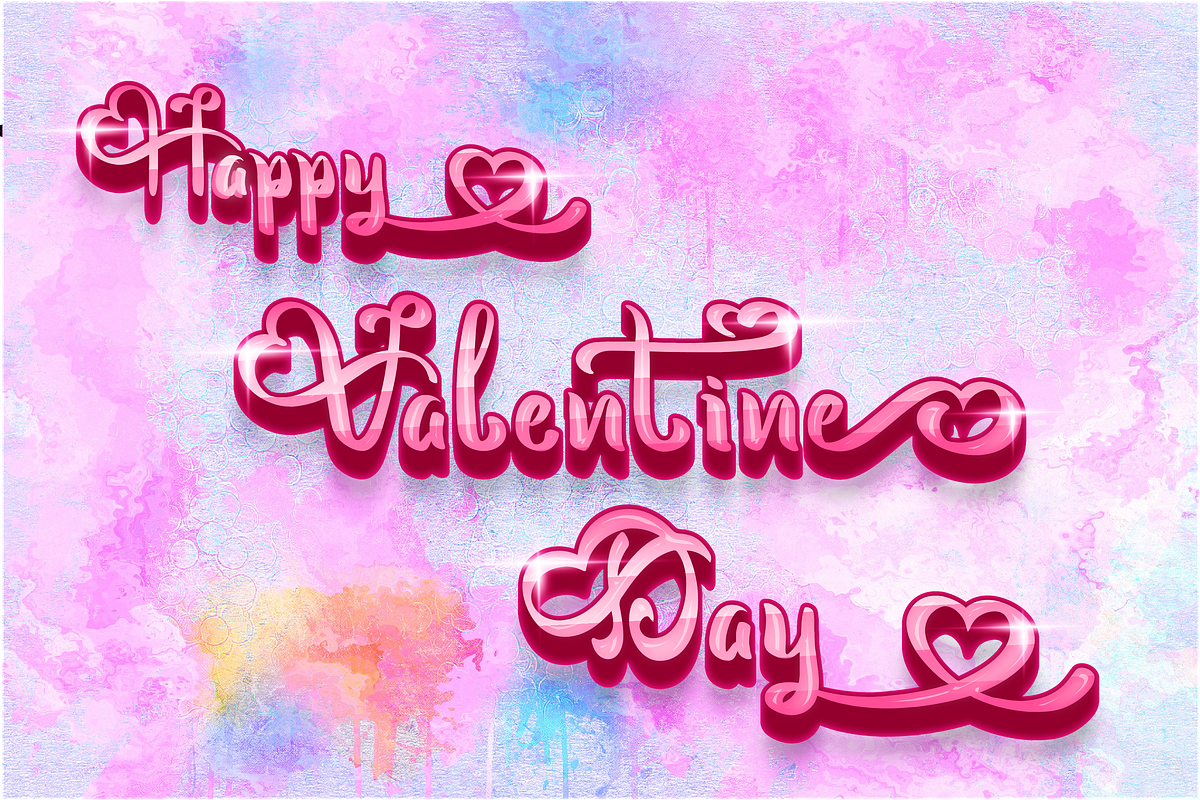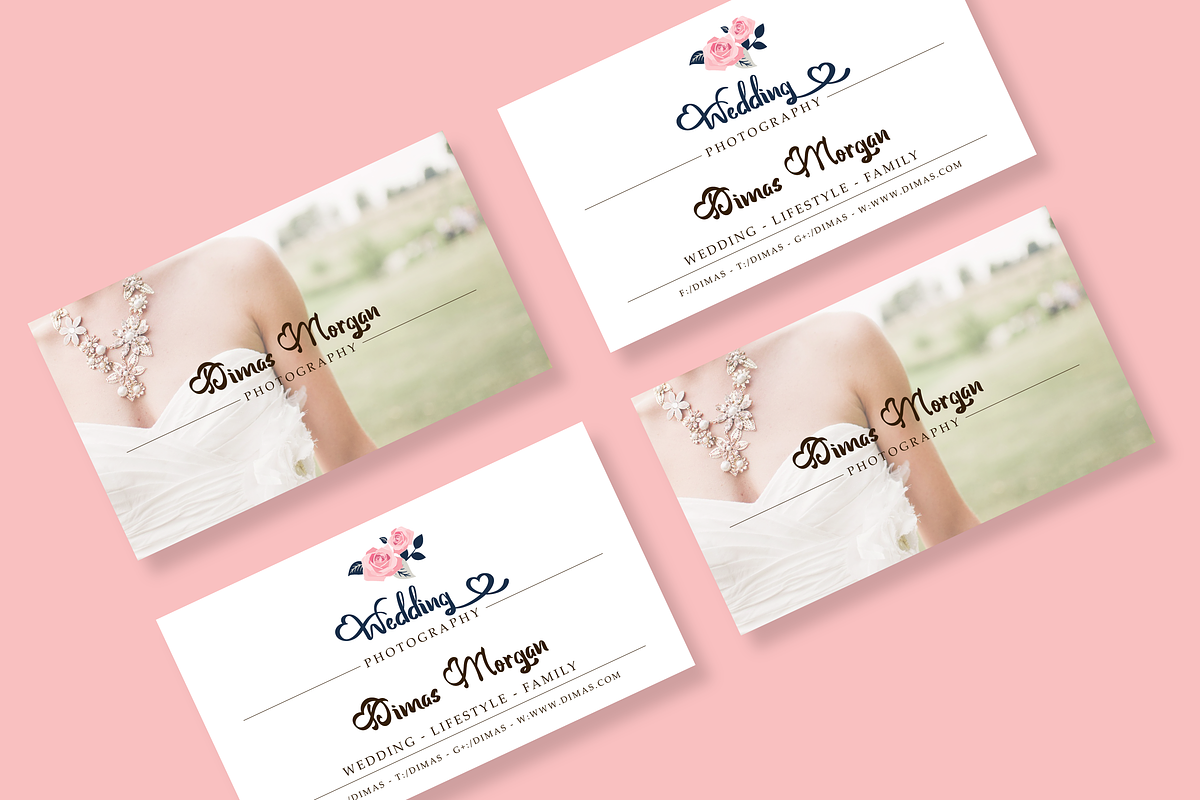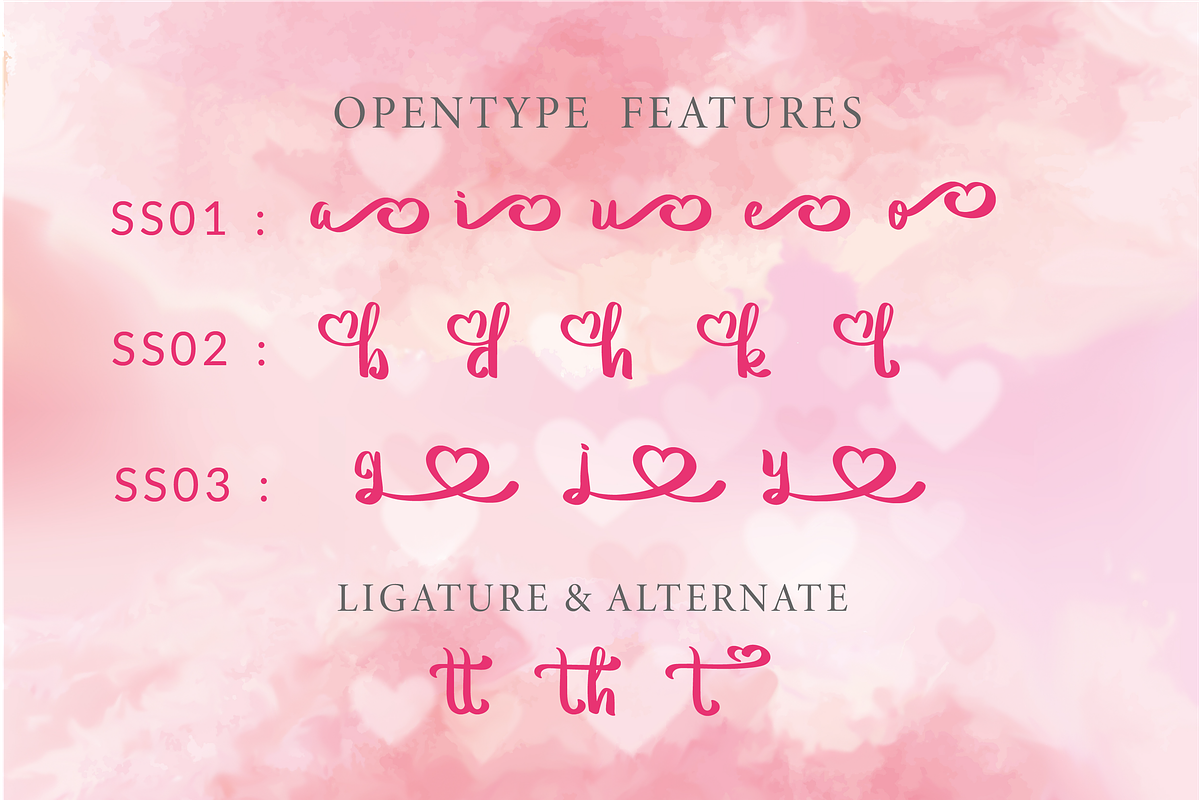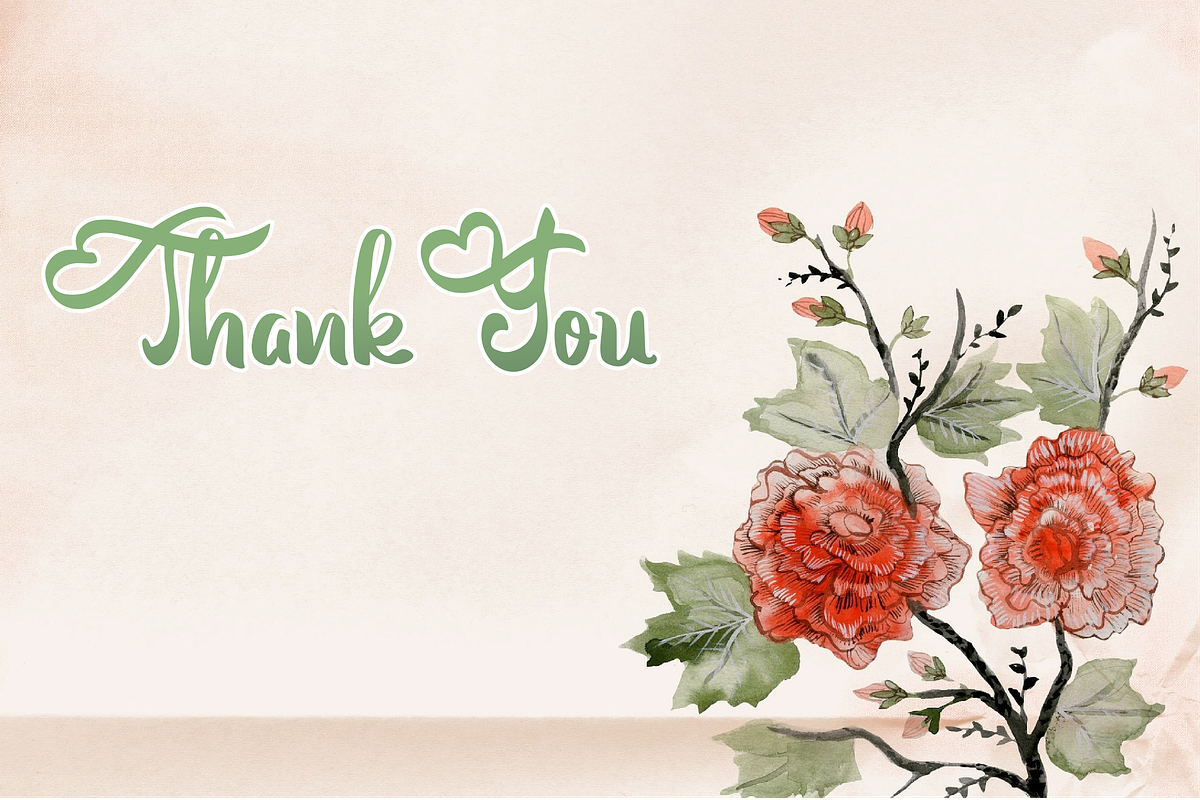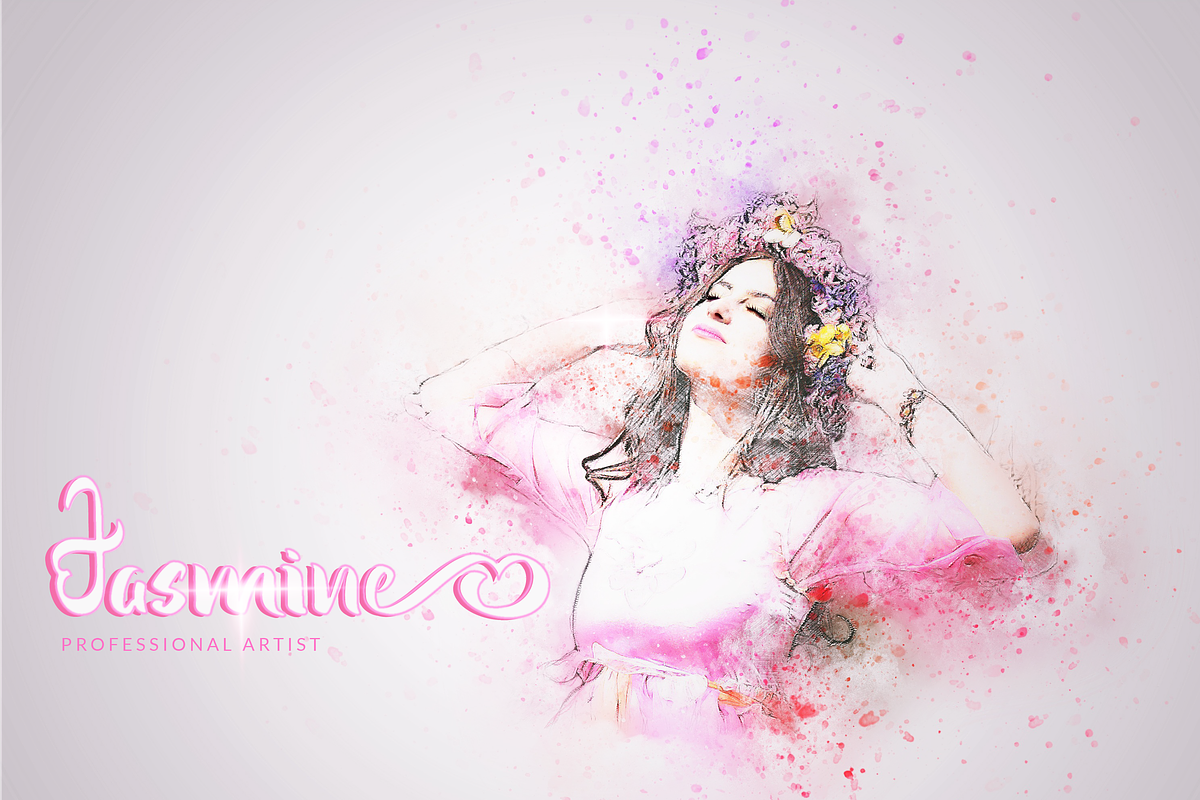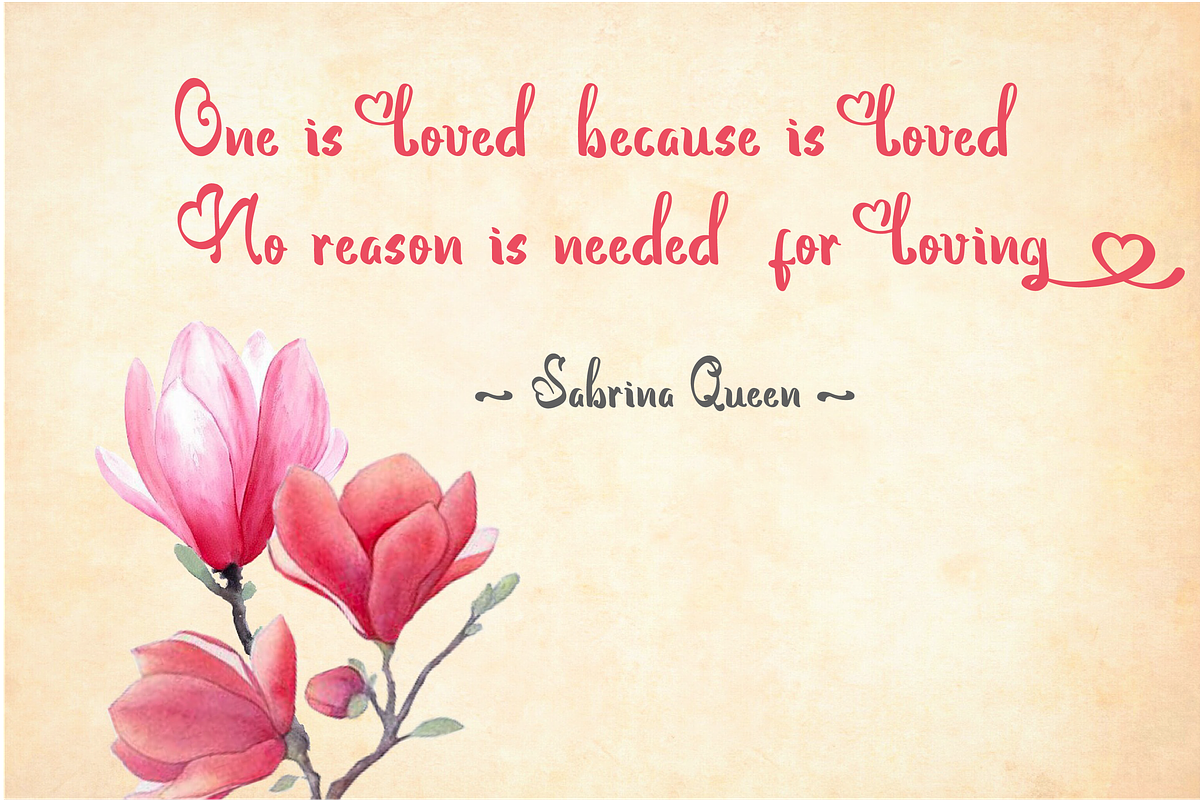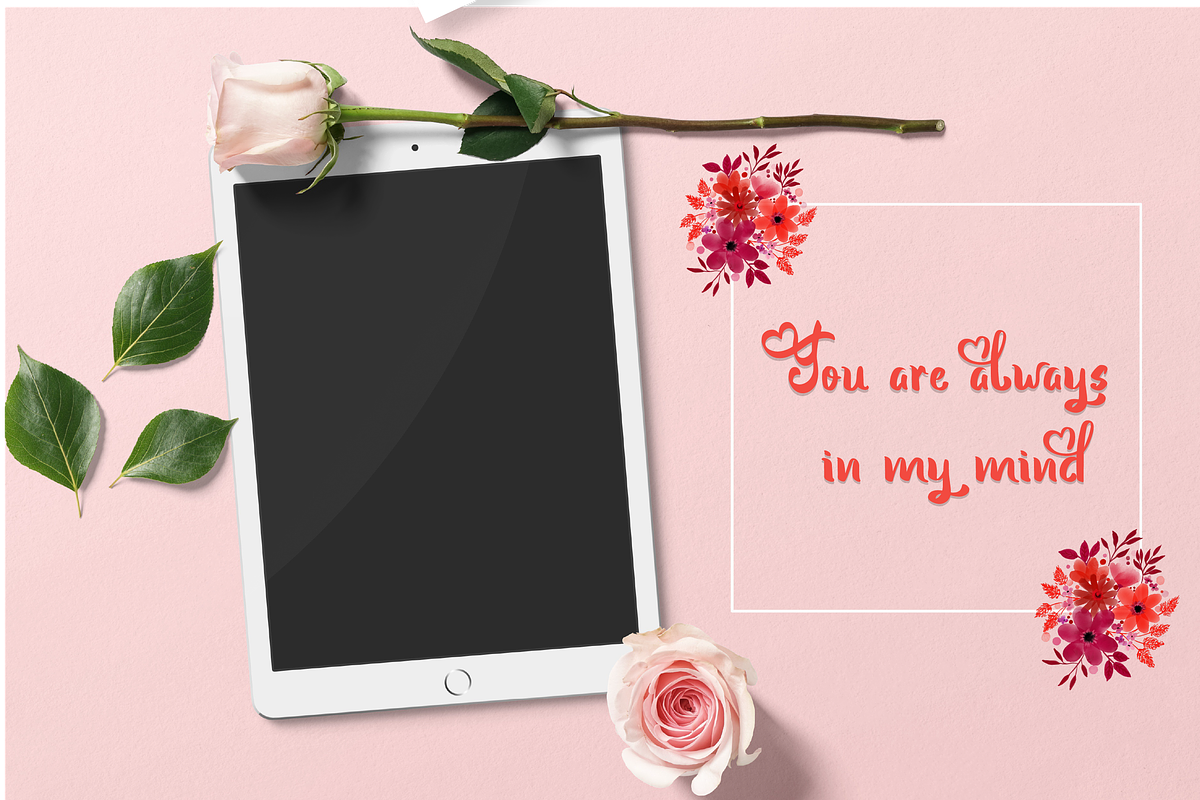
Vinolya a lovely font
Vinolya is a lovely font is Beautiful and sweet font that will give a beautiful impression to your designs
Vinolya would perfect for photography, watermark, social media posts, quote, logos & branding, invitation, product designs, label, stationery, wedding designs, product packaging, special events or anything that need handwriting taste.